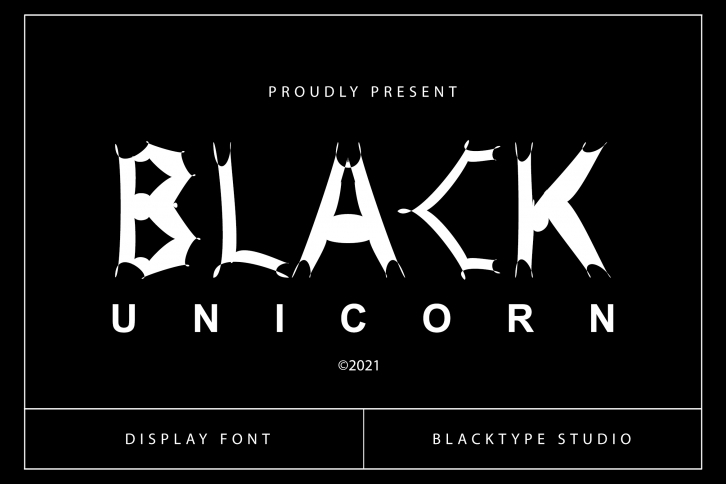
Black Unicorn is an incredibly unique and interesting decorative font, featuring characters made out of unicorns. It embodies playfulness and authenticity and is the perfect choice for any children activity or school project.